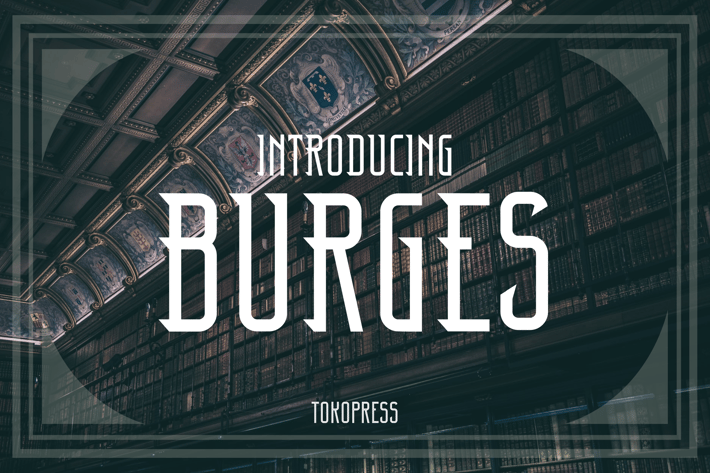
Burges - Classic Art deco font
Burges - Art Deco Typeface
Burges is a tall, linear art deco typeface that combines geometric elegance with high-contrast lines and clean terminals—bringing refined structure to any layout. Its elongated vertical forms and narrow spacing give it a timeless sophistication, ideal for upscale editorial use, interior branding, and architectural projects. The font’s classic symmetry and refined style evoke 1920s glamor while remaining sleek and modern for today’s luxury markets.
With a distinctly editorial tone and fashion-forward construction, Burges thrives in layouts where every letter should feel intentional and poised. It's made for designers who want to elevate their message through both history and class.
Burges is your go-to typeface for branding projects that demand elegance and authority. Think interior design magazines, fashion lookbooks, jewelry collections, or curated product packaging—anywhere a sophisticated and cultured visual tone is essential. This font transforms headlines and logotypes into visual architecture, creating emotional impact through verticality and flow. Whether for luxury products or high-end storytelling, Burges makes your words feel timeless.
Key Features :
Tall Art Deco Lettering
• Elongated vertical forms evoke 1920s architecture and fashion.
Geometric & Balanced Proportions
• Perfect alignment and rhythm for sophisticated editorial compositions.
Luxury-Oriented Display Font
• Best suited for logotypes, product branding, and magazine layouts with a high-end aesthetic.
Historically Rooted, Visually Modern
• Combines vintage cues with modern usability for seamless application across media.